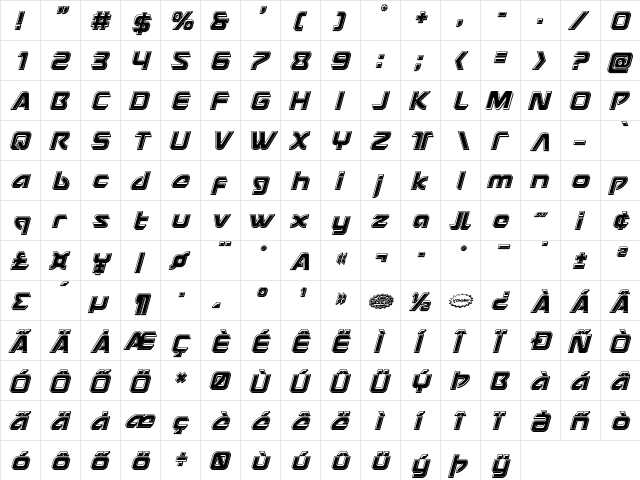
USAngel Bevel Italic Italic Font Preview
USAngel Bevel Italic Italic
USAngel Bevel Italic Italic Font Details
Design Context for USAngel Bevel Italic Typeface
USAngel Bevel Italic takes a measured approach to typography — its balanced proportions and neutral character make it a reliable workhorse for both digital and print work. The dynamic lean of this cut emphasises speed and emphasis in any layout.